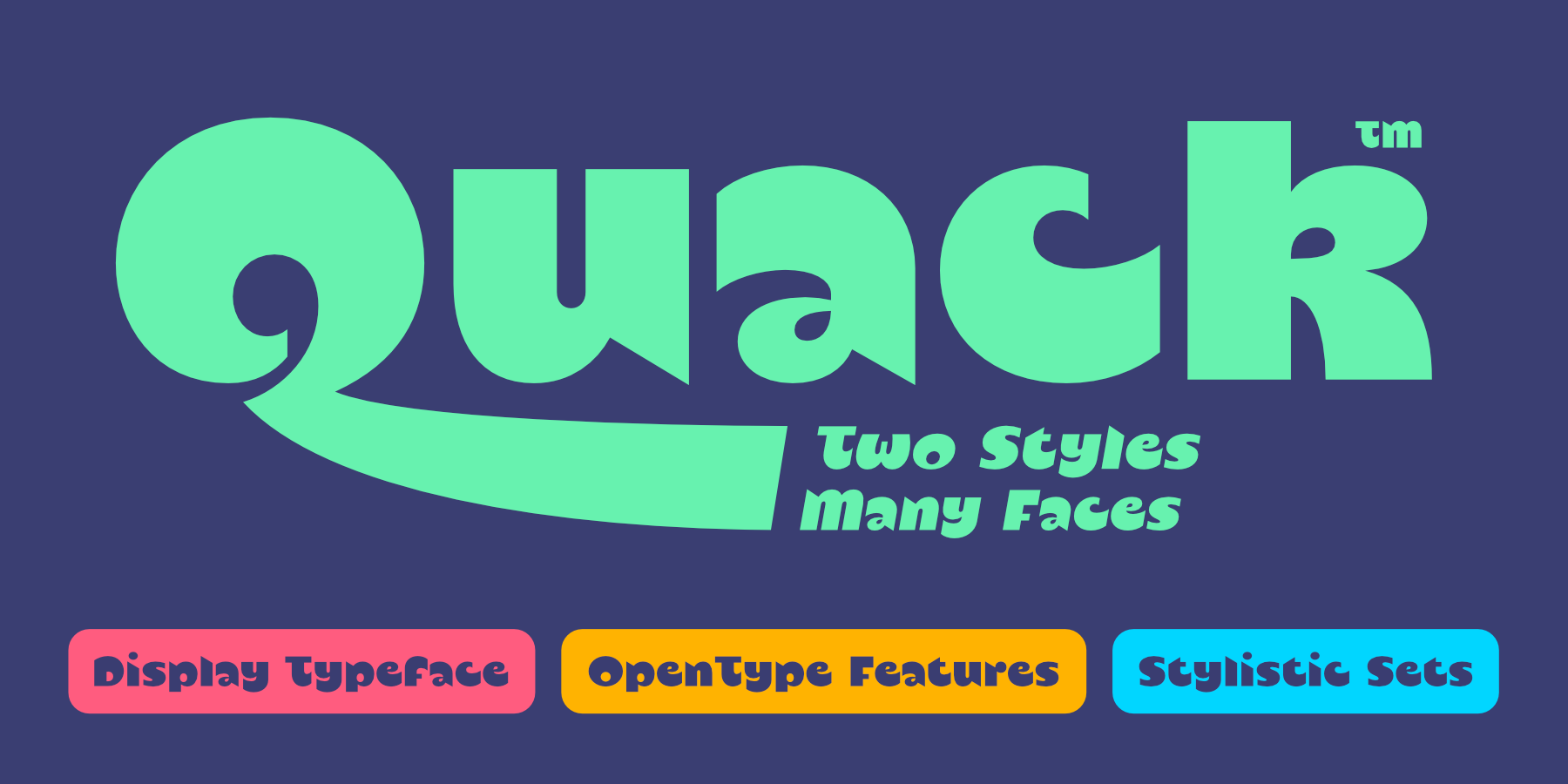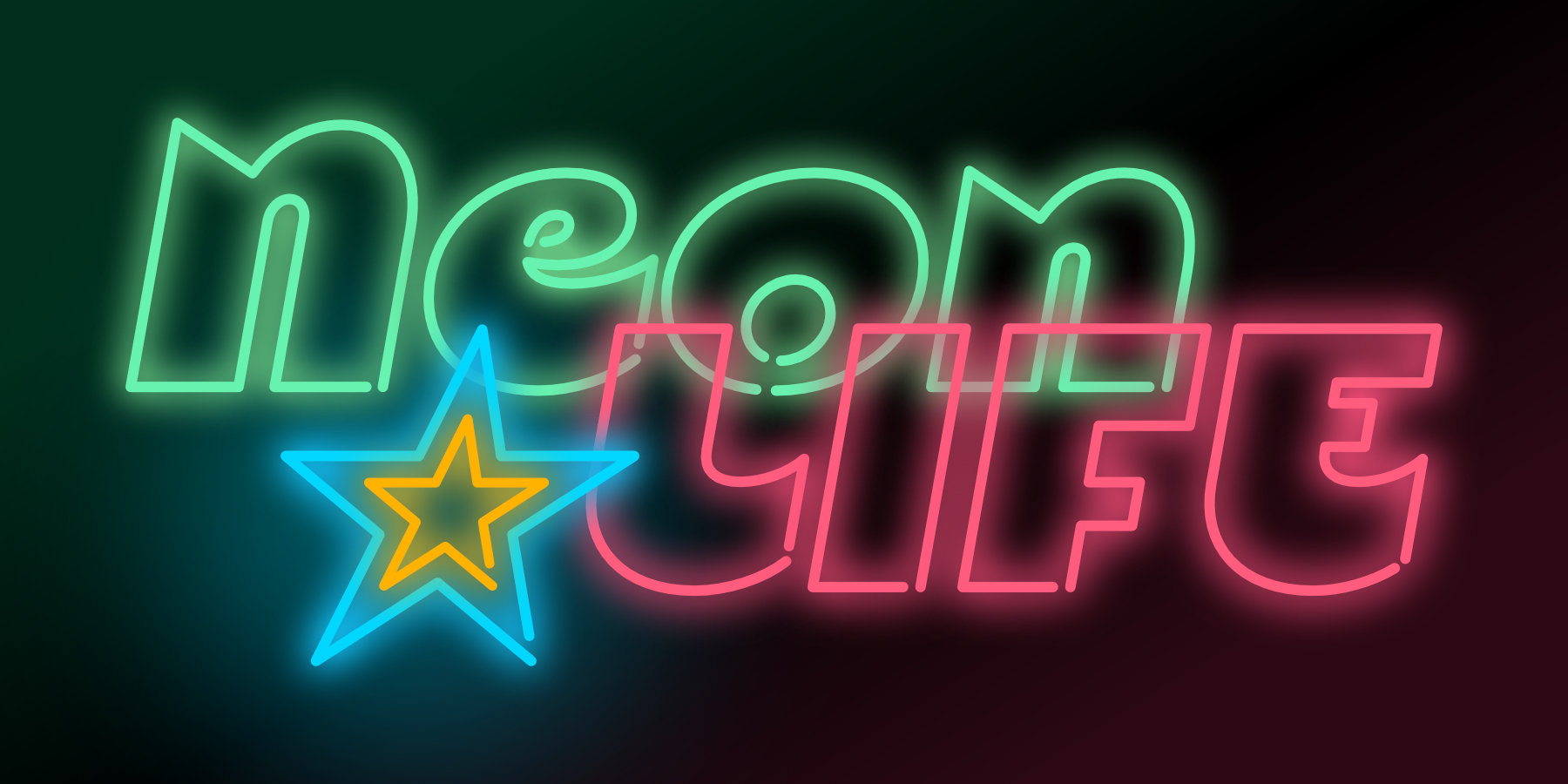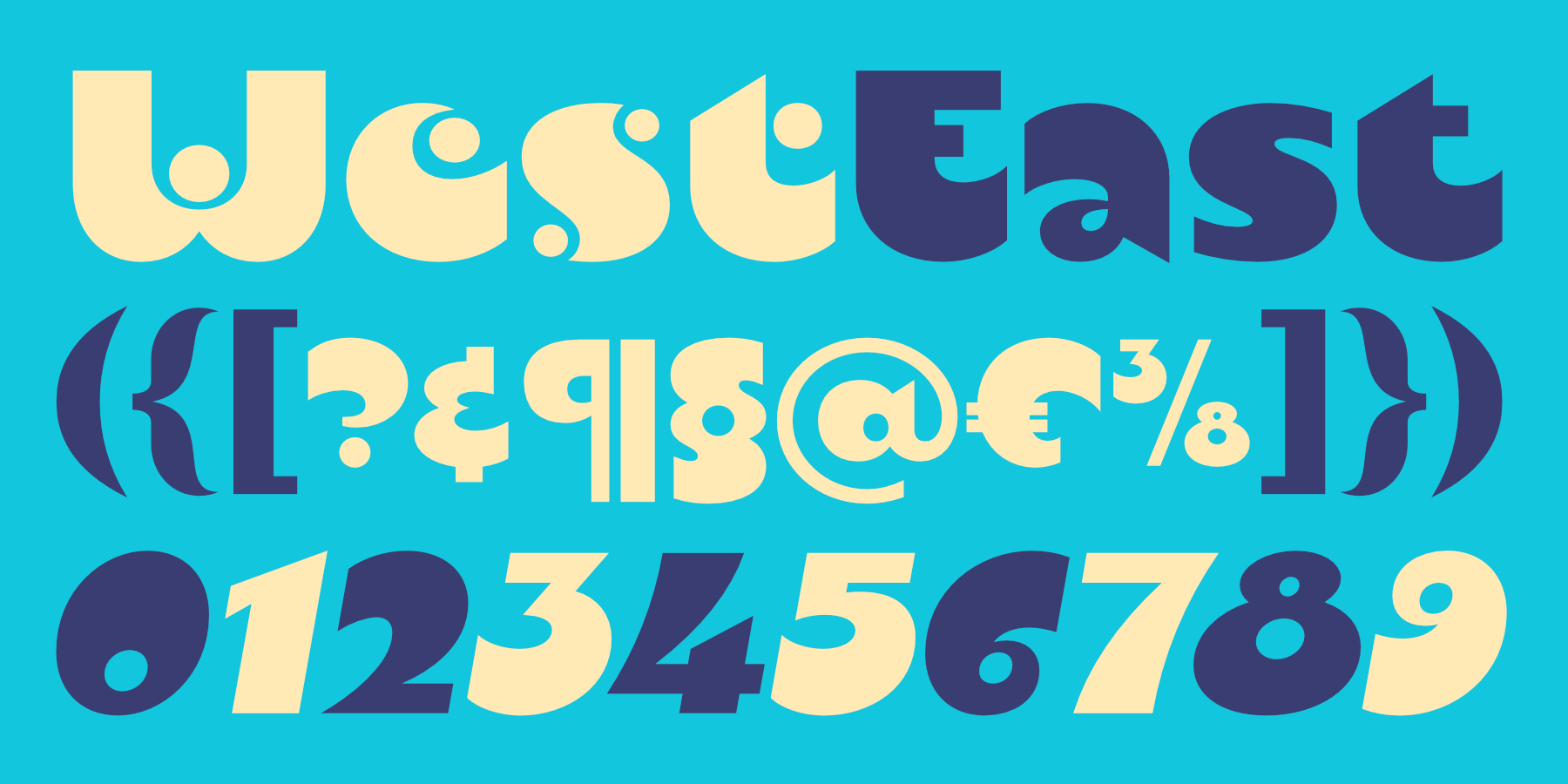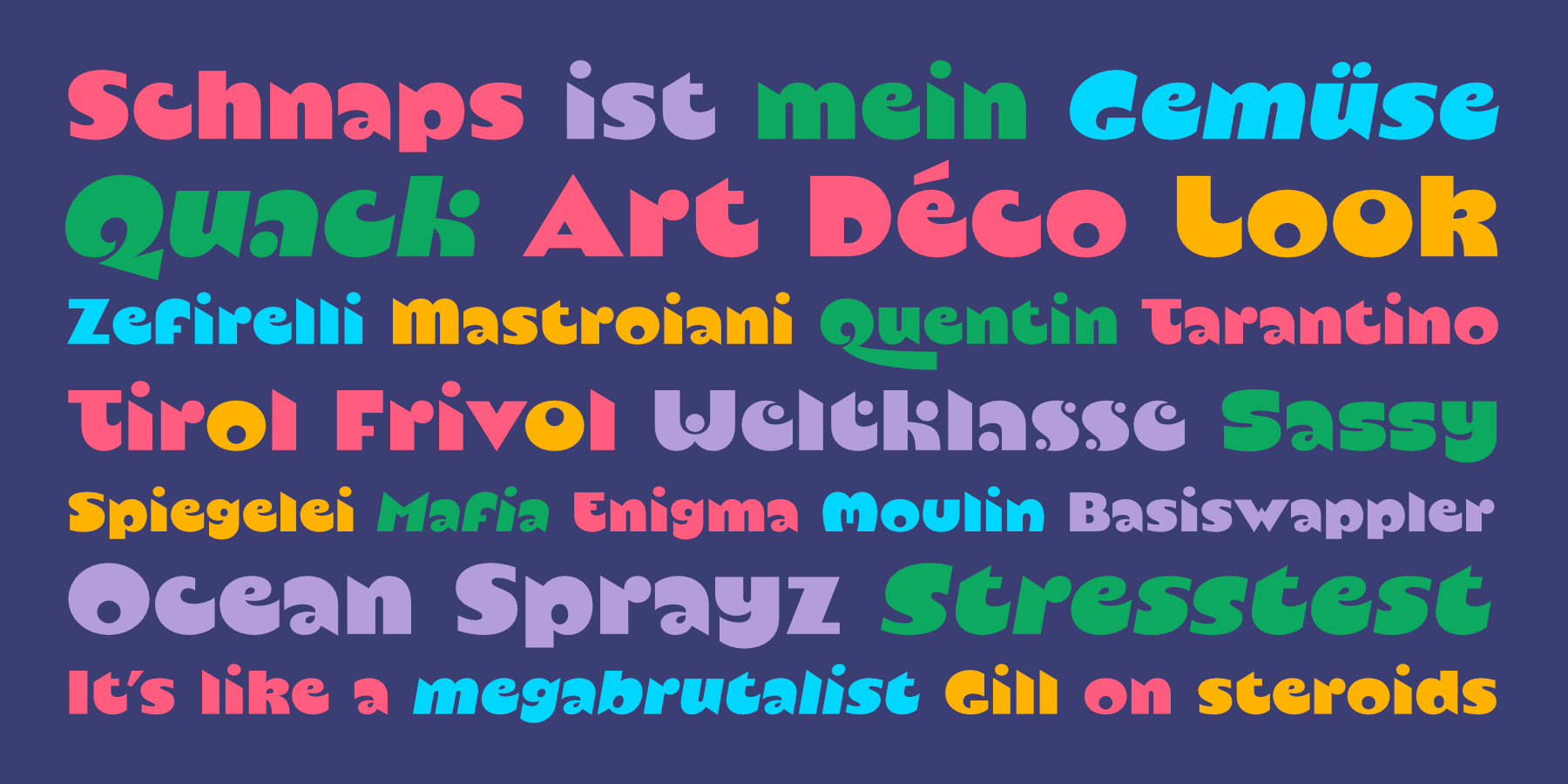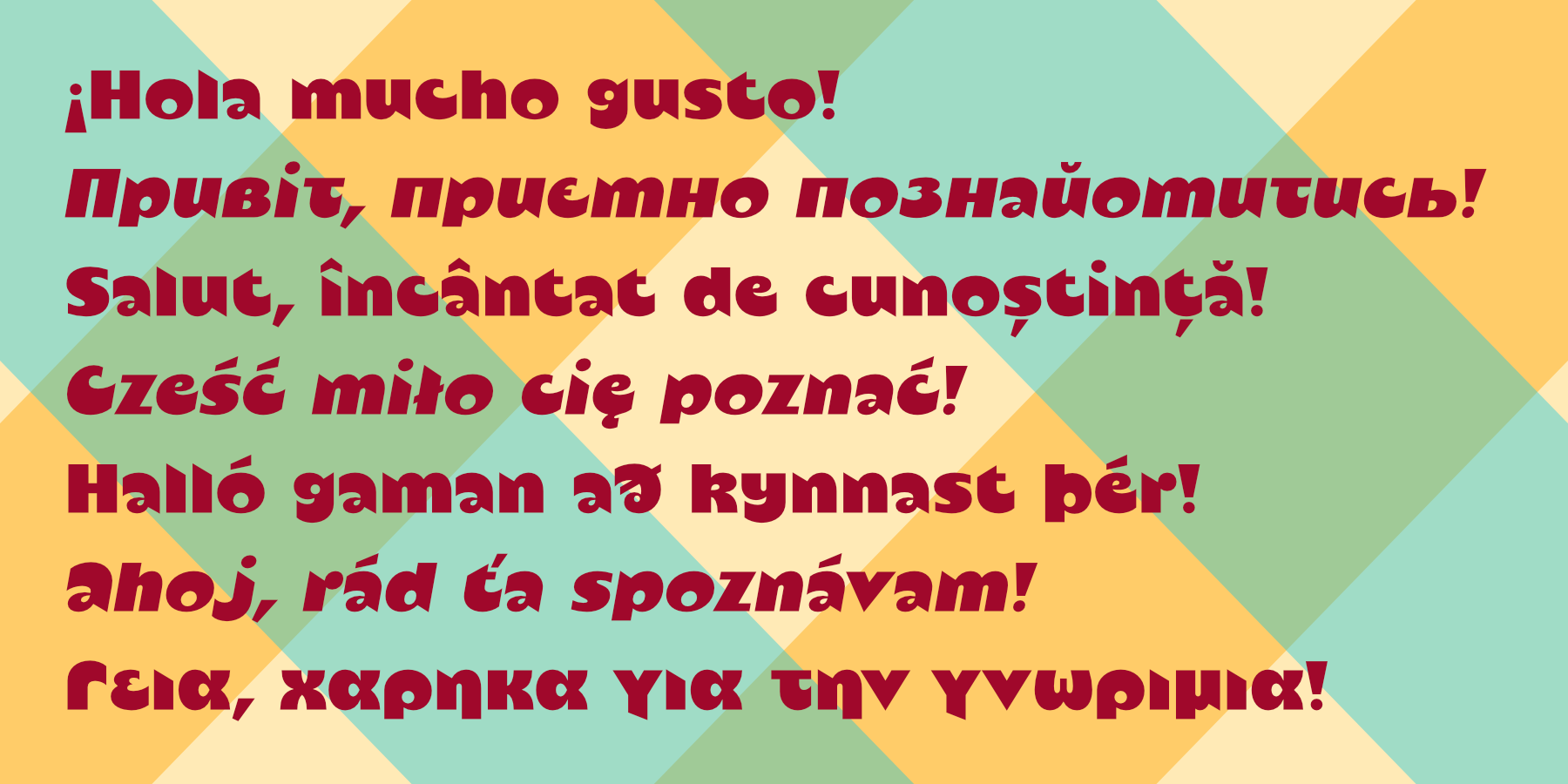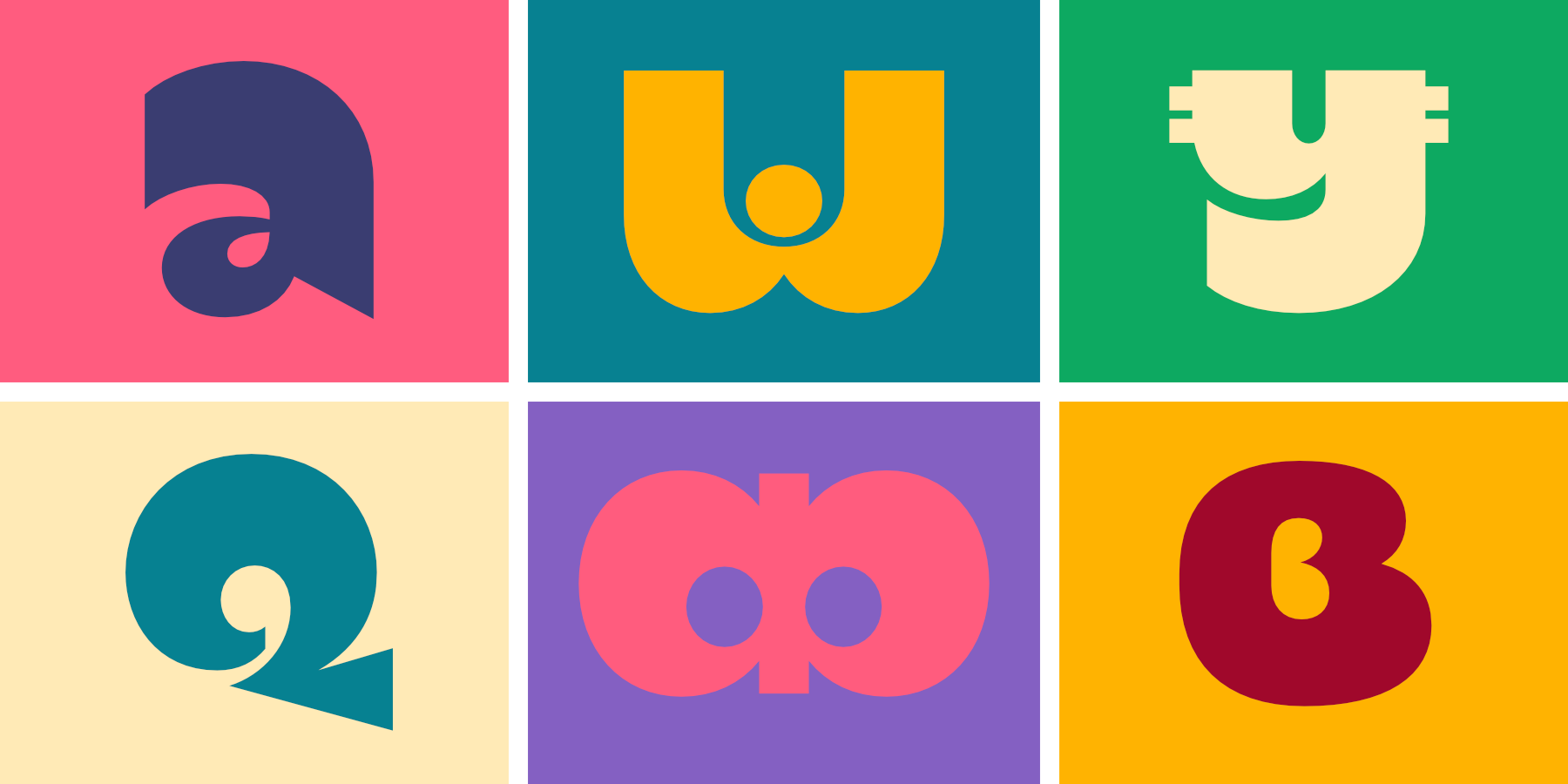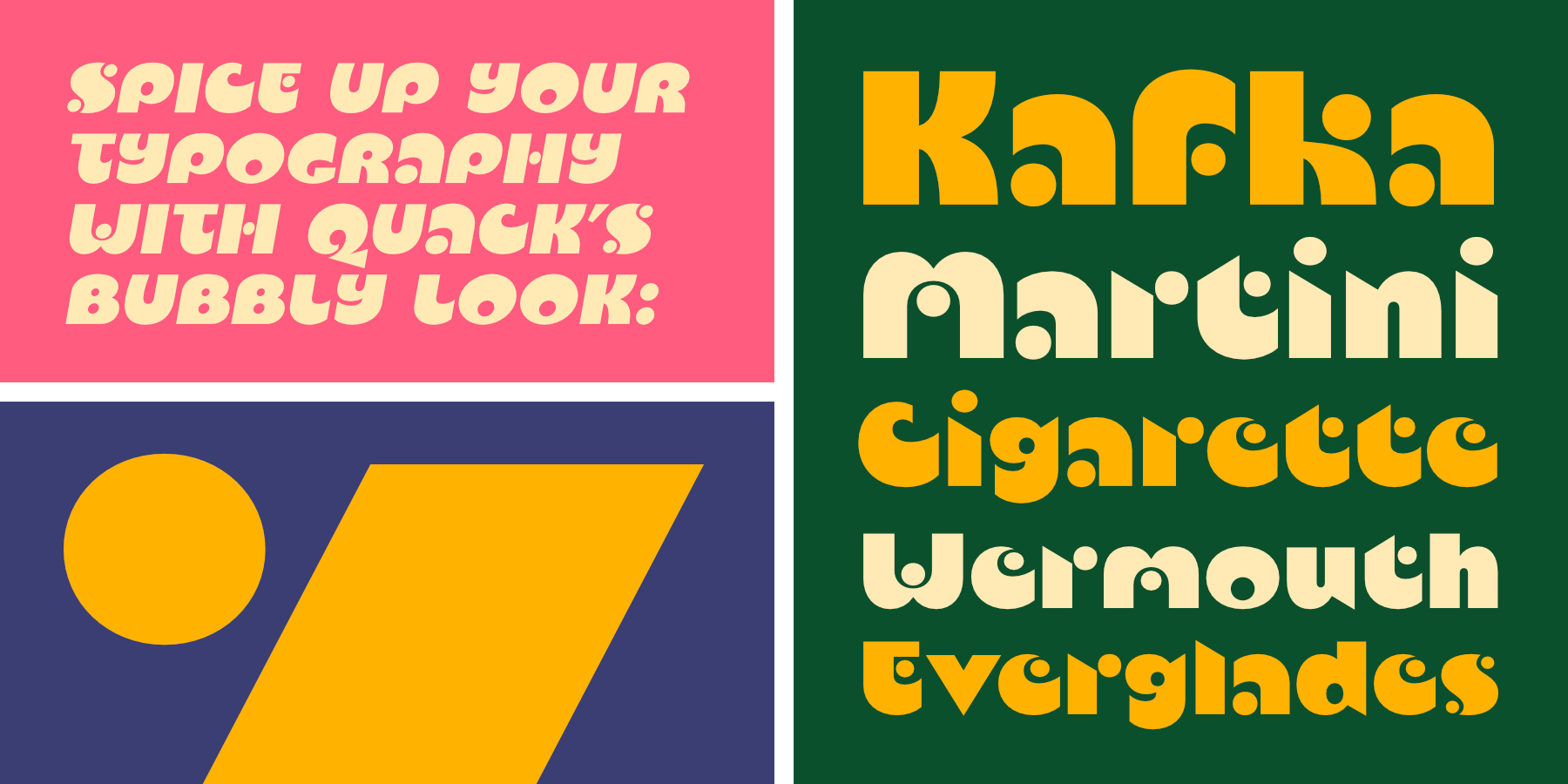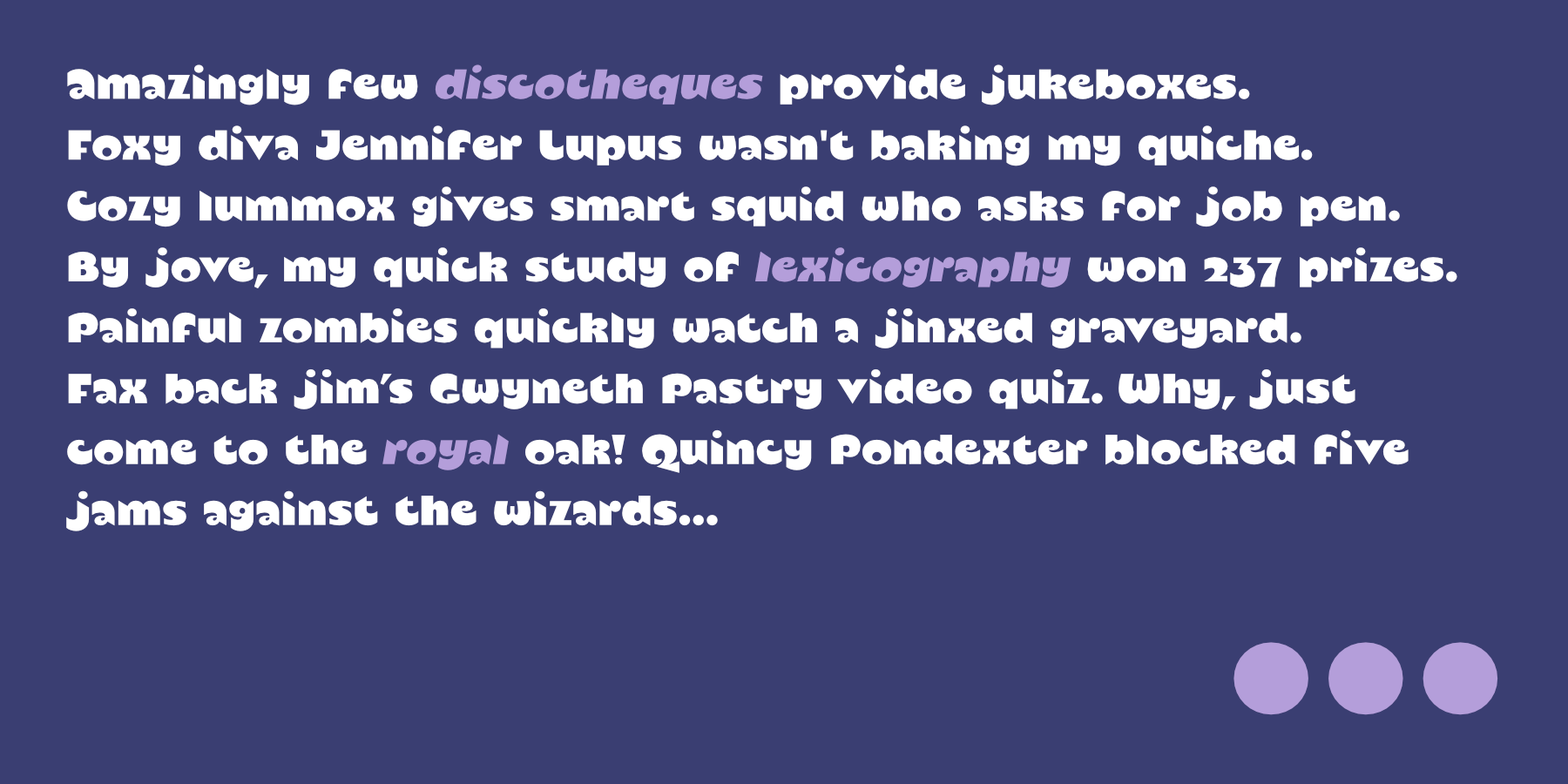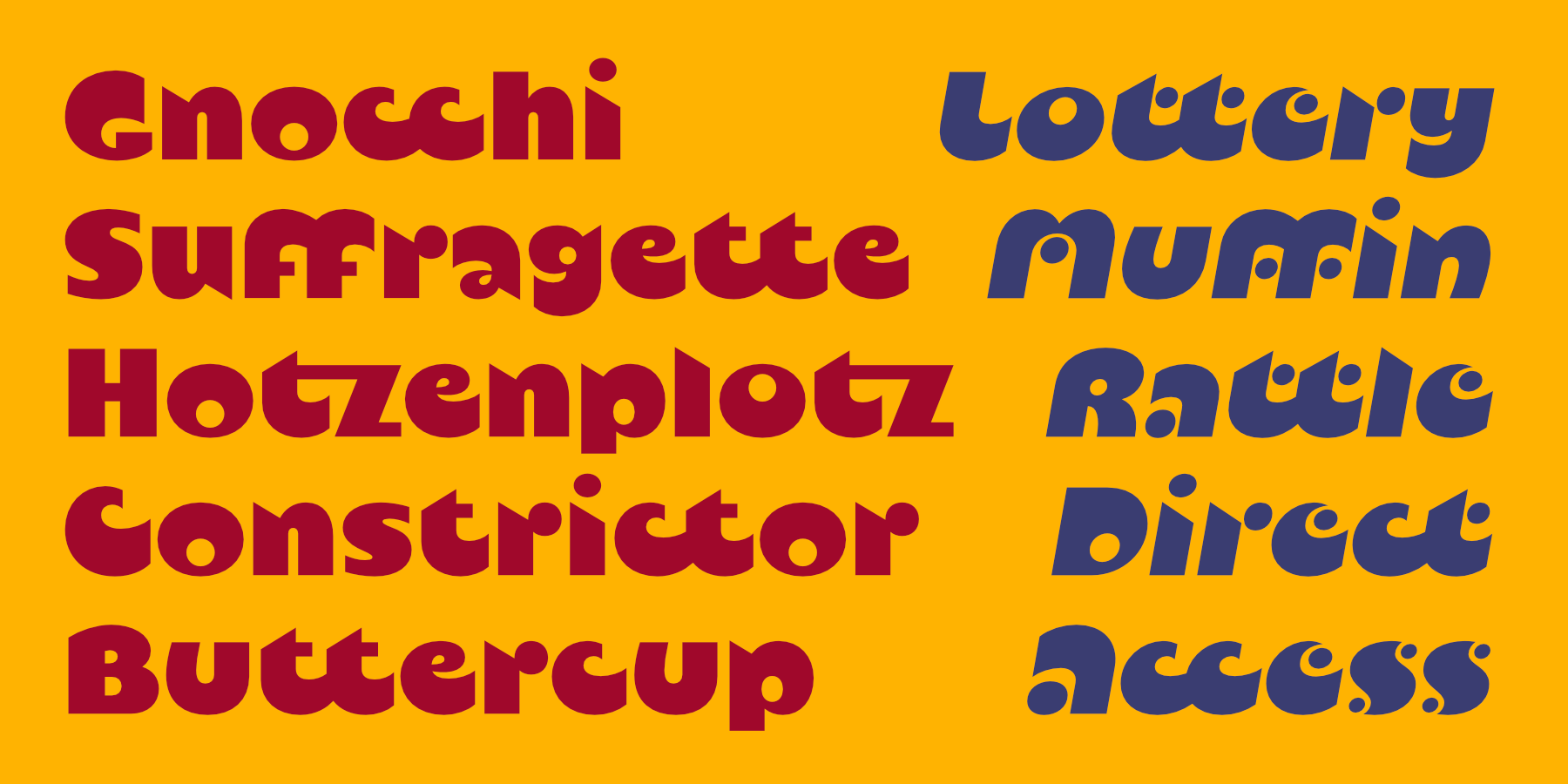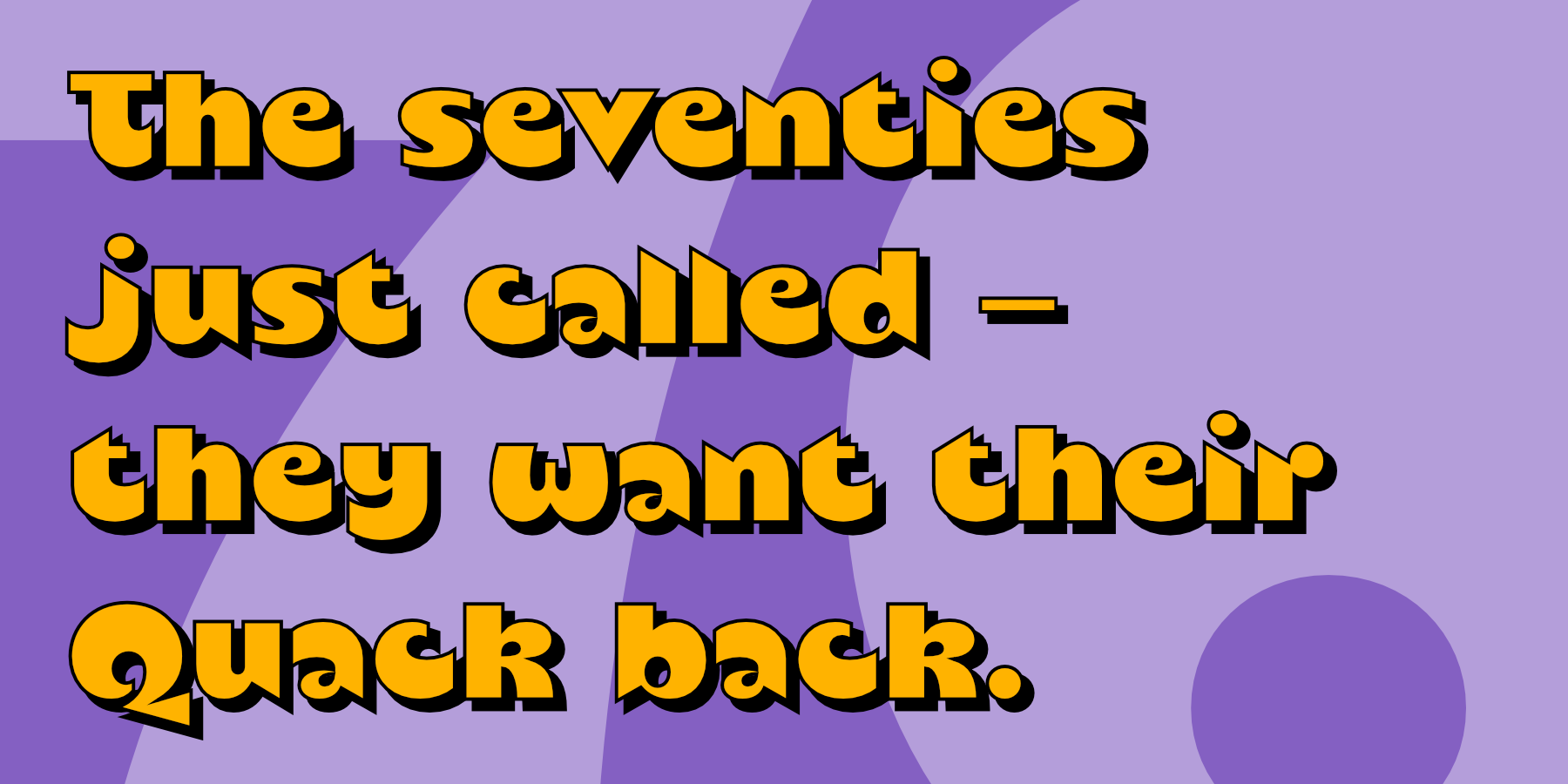
‘Quack’ is a super-bold and fun display font, providing a vast range of alternates (see OT Features) which makes it surprisingly versatile for branding tasks. The original idea was to find out what a Gill Sans on steroids would look like.
It covers not only Latin languages but also Cyrillic and Greek.